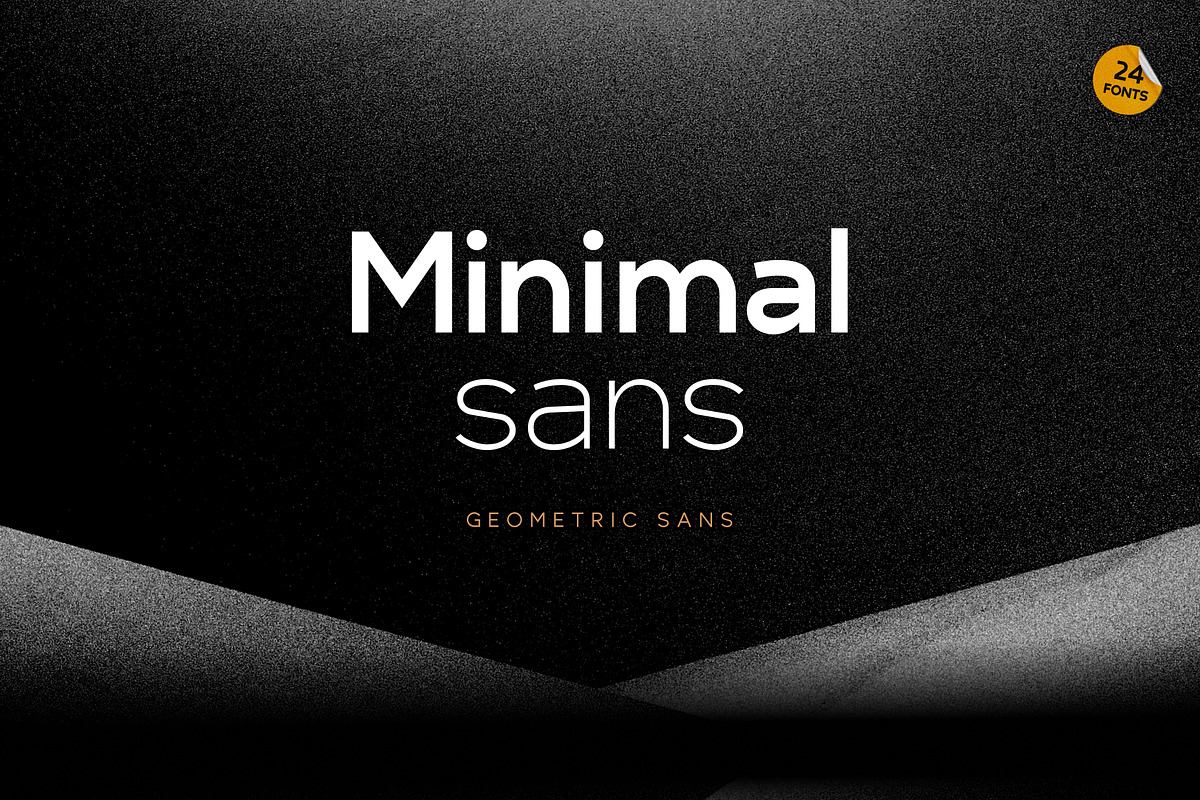
Minimal Sans - Geometric - 24 Fonts Free Download is an extensive and versatile typeface family that includes 24 fonts, offering a range of weights and styles. Designed with geometric precision, Minimal Sans is perfect for modern branding, digital content, corporate design, websites, and any creative project requiring clean, minimalist typography.
The geometric design ensures excellent legibility and balance, making it suitable for both display and body text. Whether you're working on a logo, a marketing campaign, or a web interface, this font family provides the flexibility to create cohesive and professional designs.